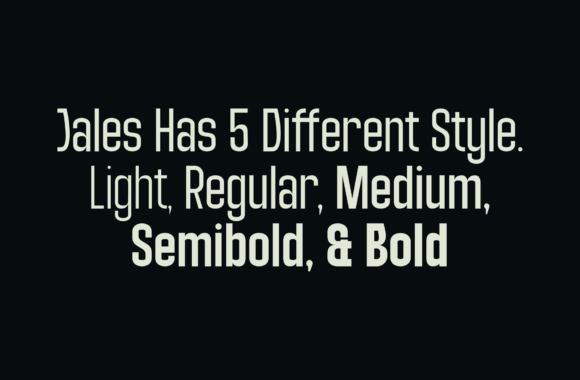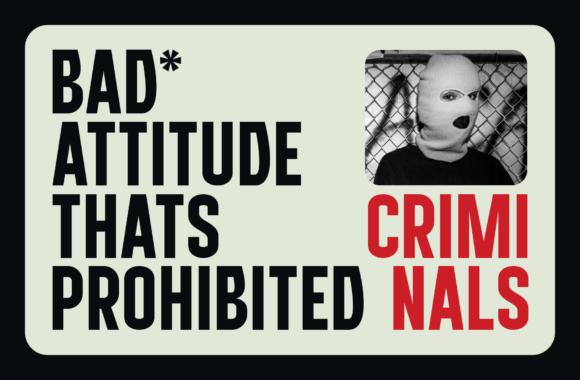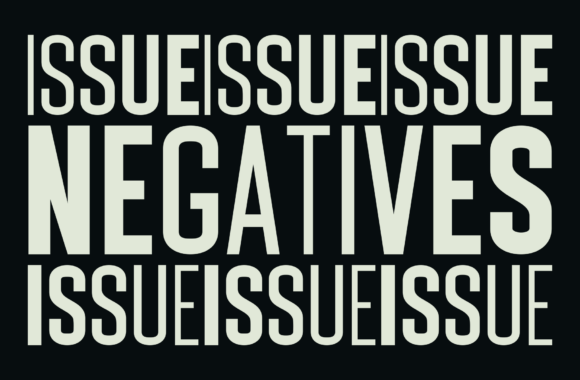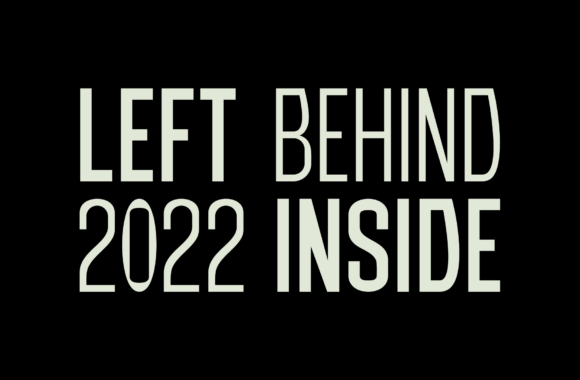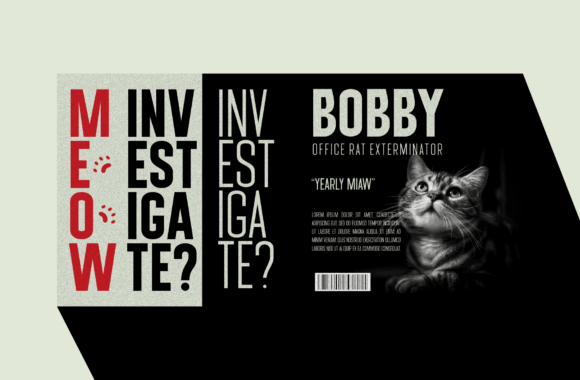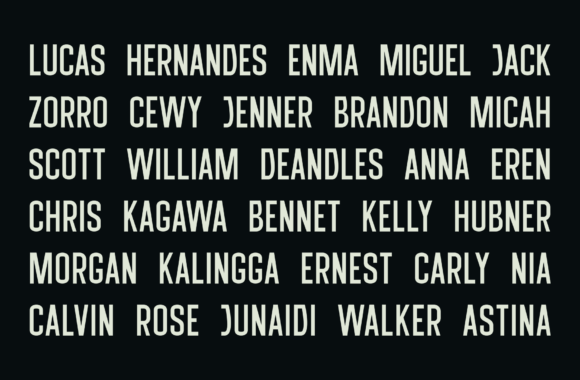
Introduction to Jales Font
Introducing new **JALES** Font is a Modern Condensed Sans Serif typeface designed to convey sophistication and clarity.
With its sleek, narrow design, JALES offers multiple weight families including Light, Regular, Medium, Semibold, and Bold This versatility in weight options makes it ideal for a variety of business applications, from branding to editorial design, delivering a clean, professional look that enhances readability and presence.
Key Features of Jales Font
Why Choose Jales Font?